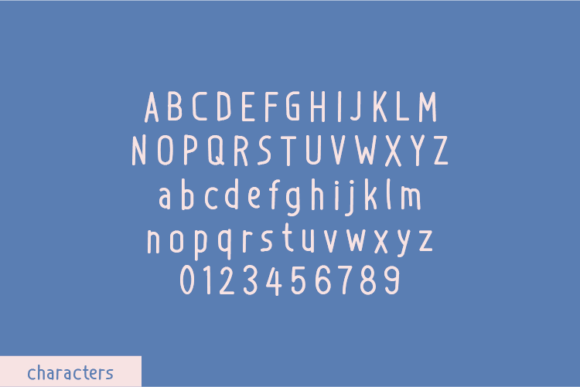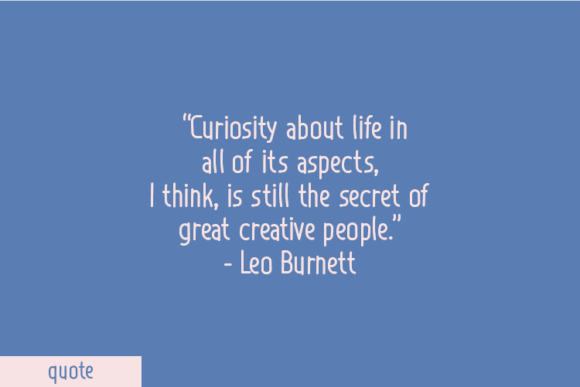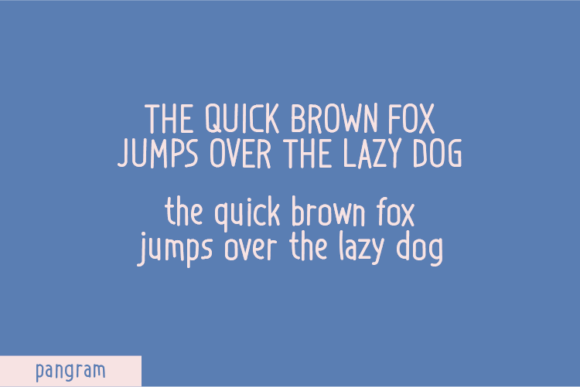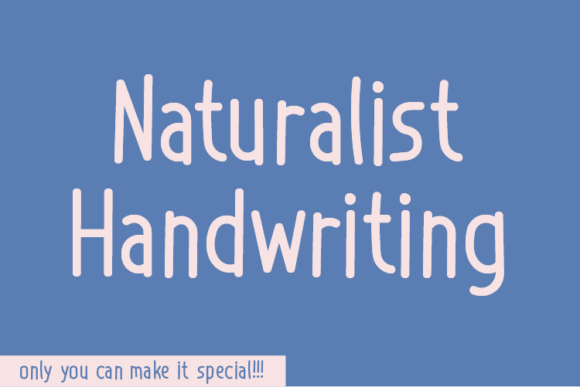
Introduction to Naturalist Handwriting Font
Naturalist Handwriting is a casual and neat handwritten font.
Key Features of Naturalist Handwriting Font